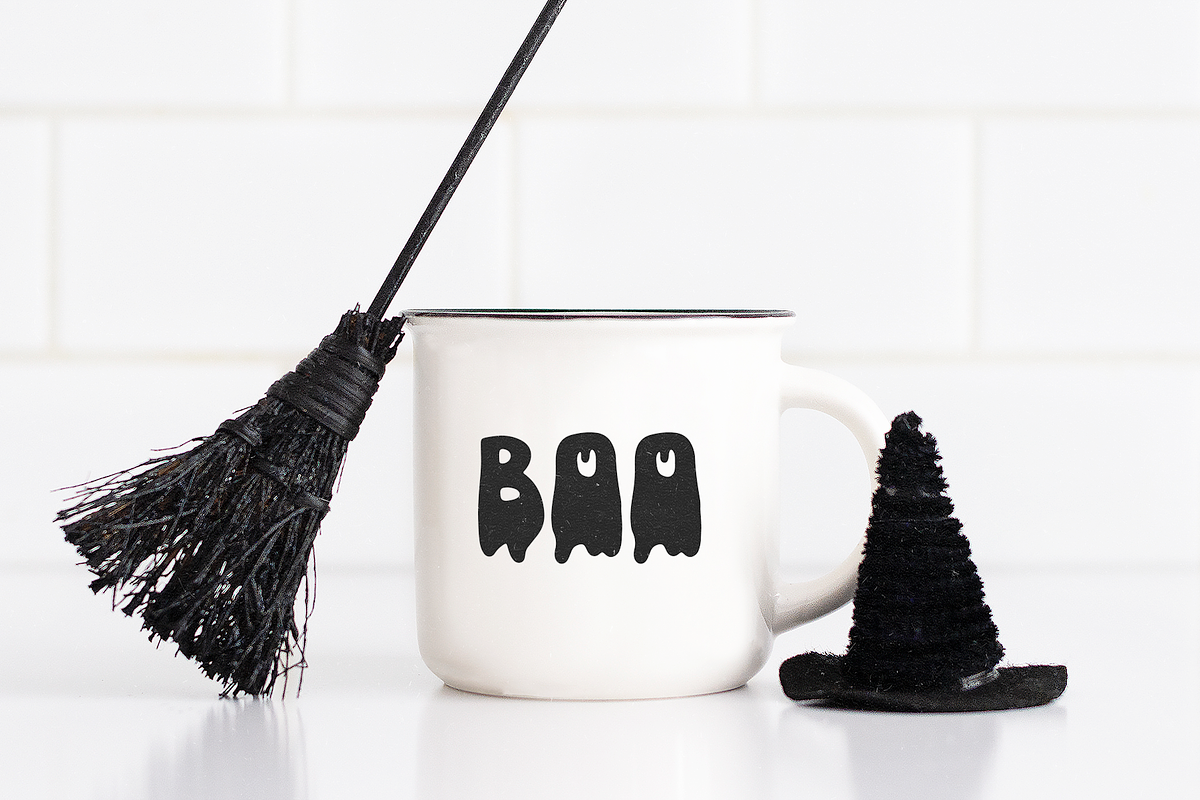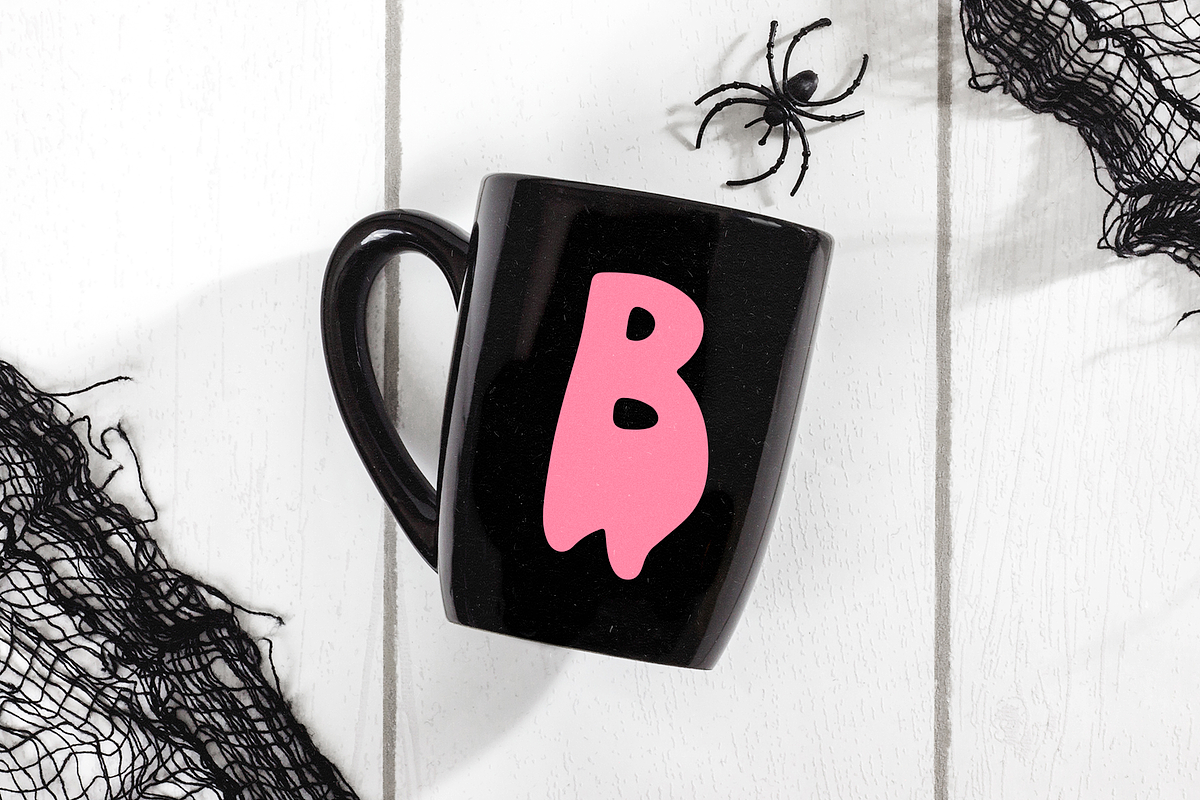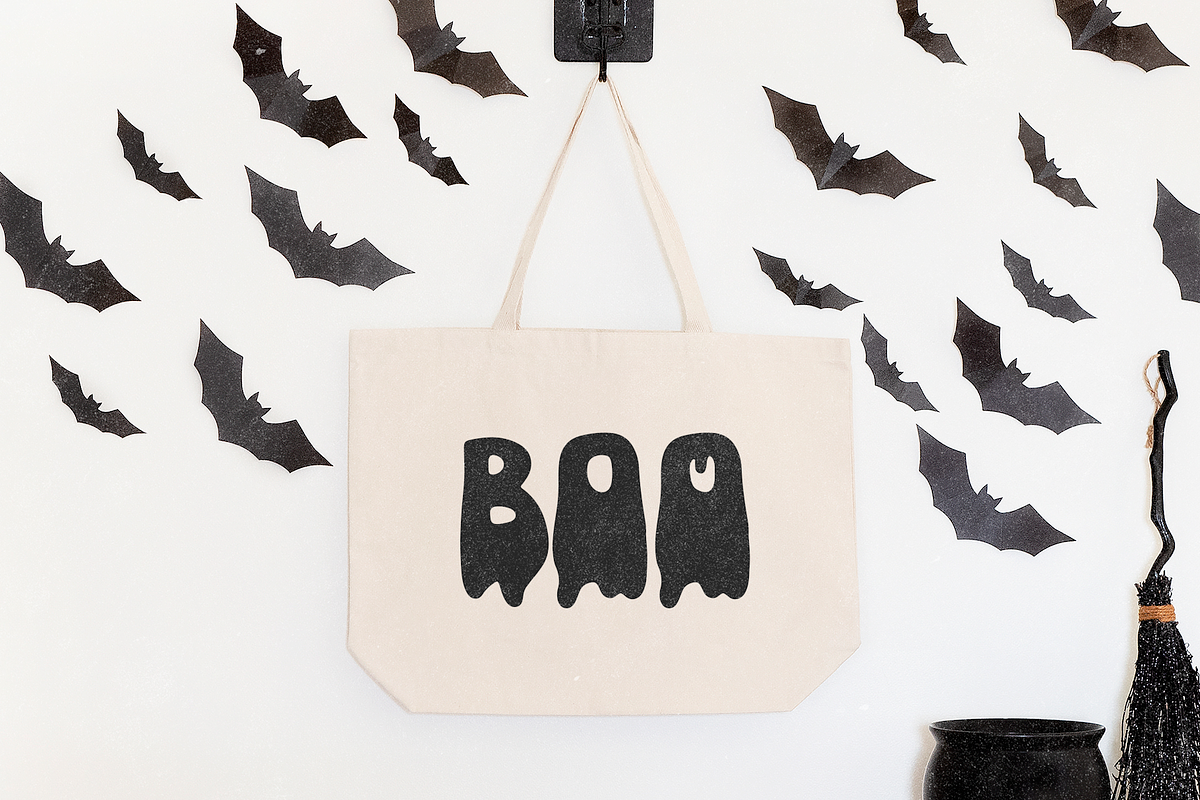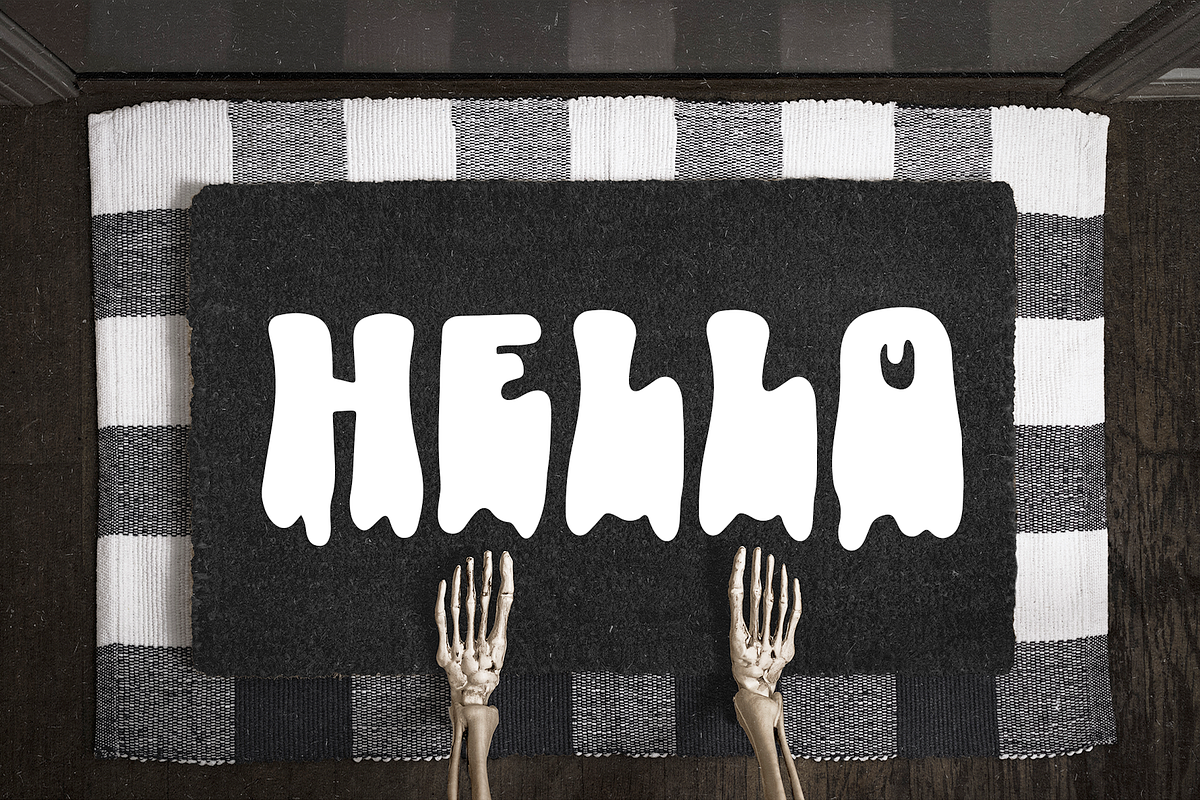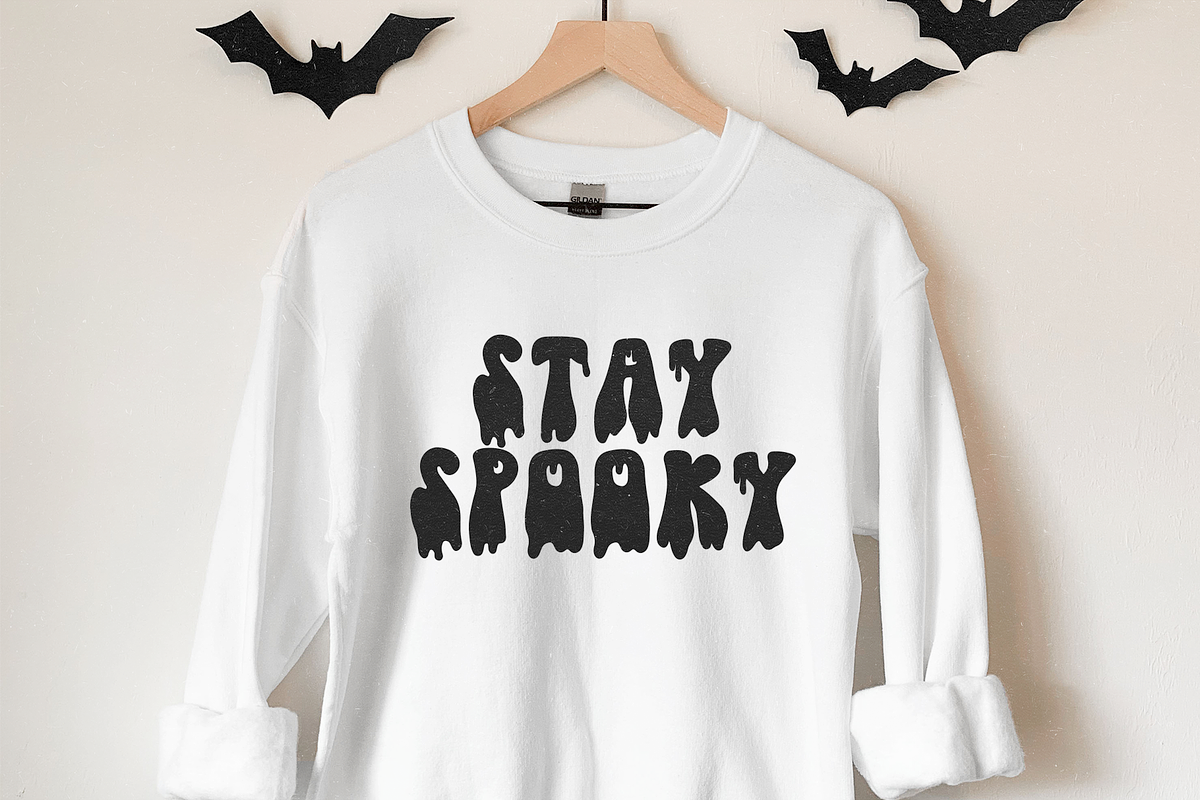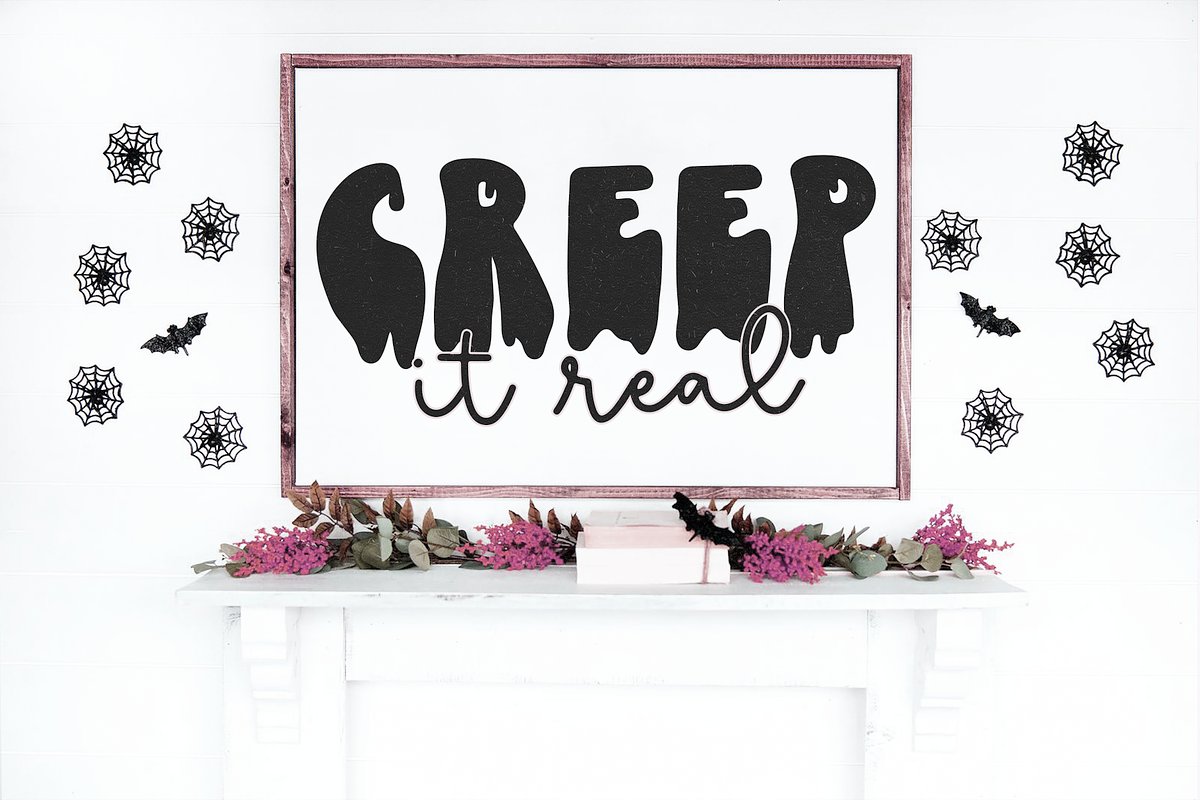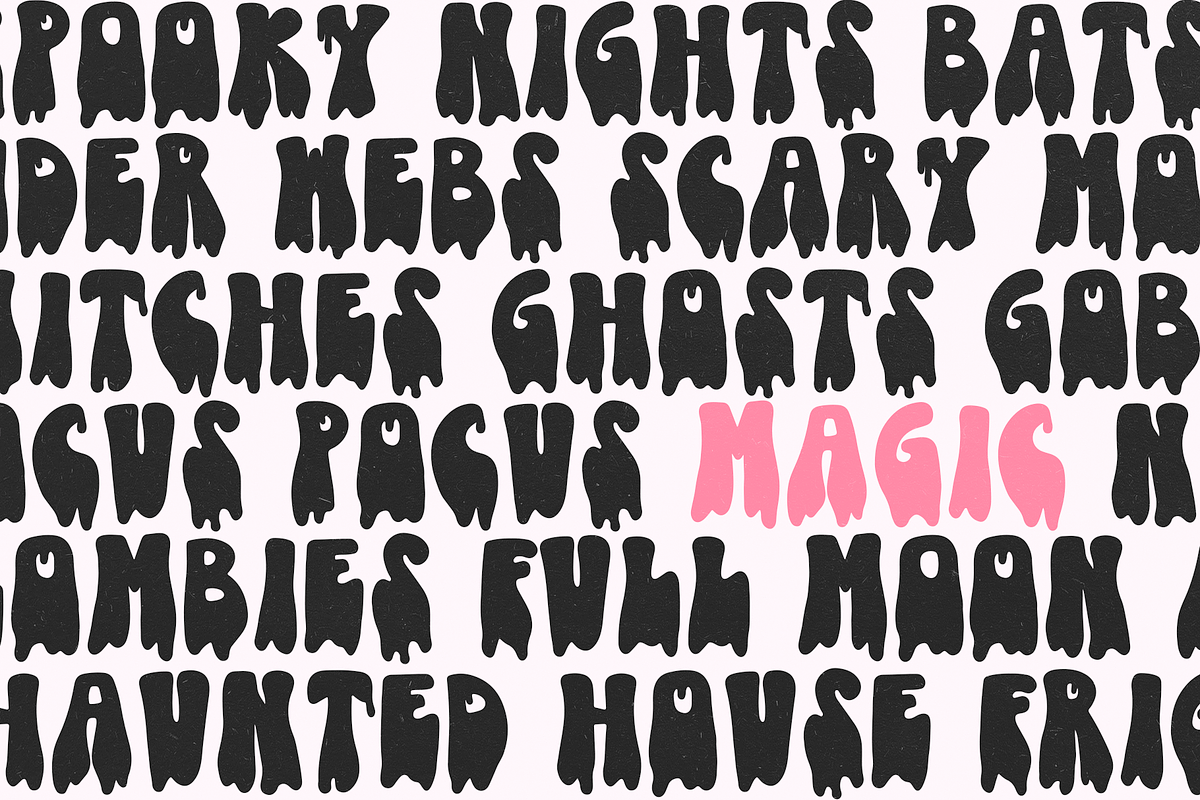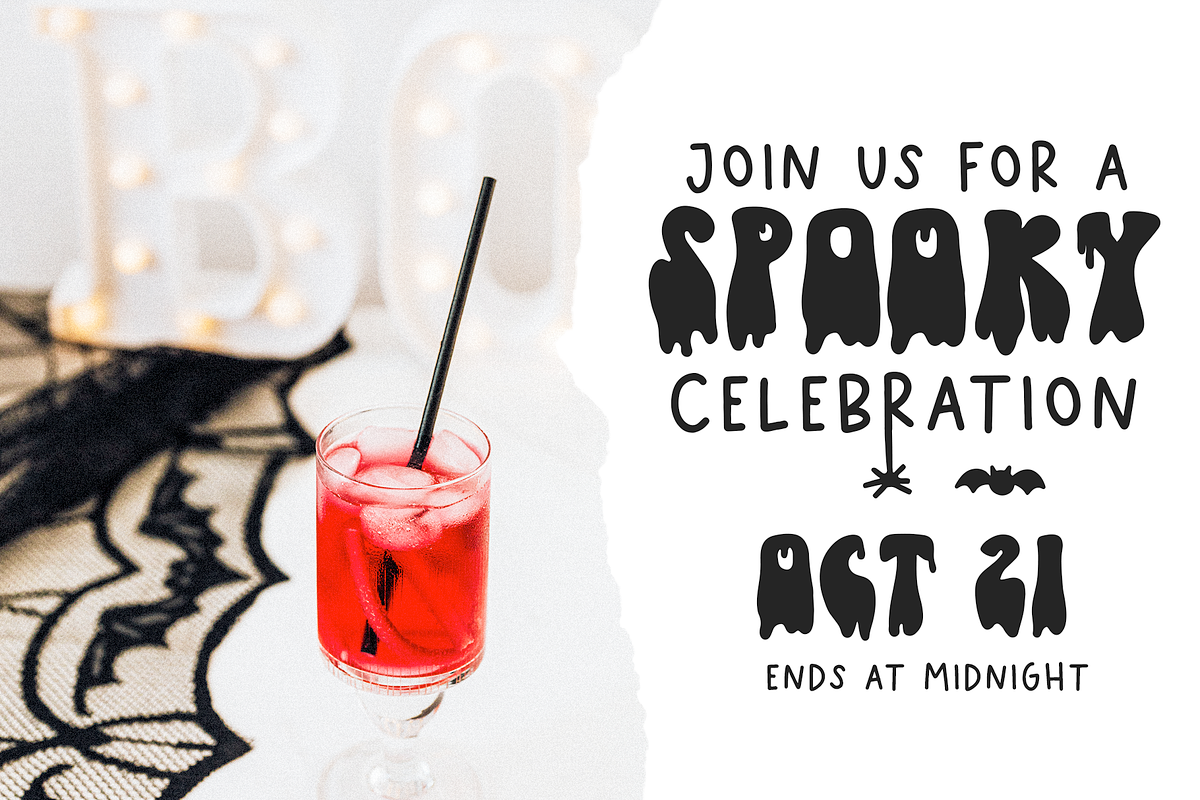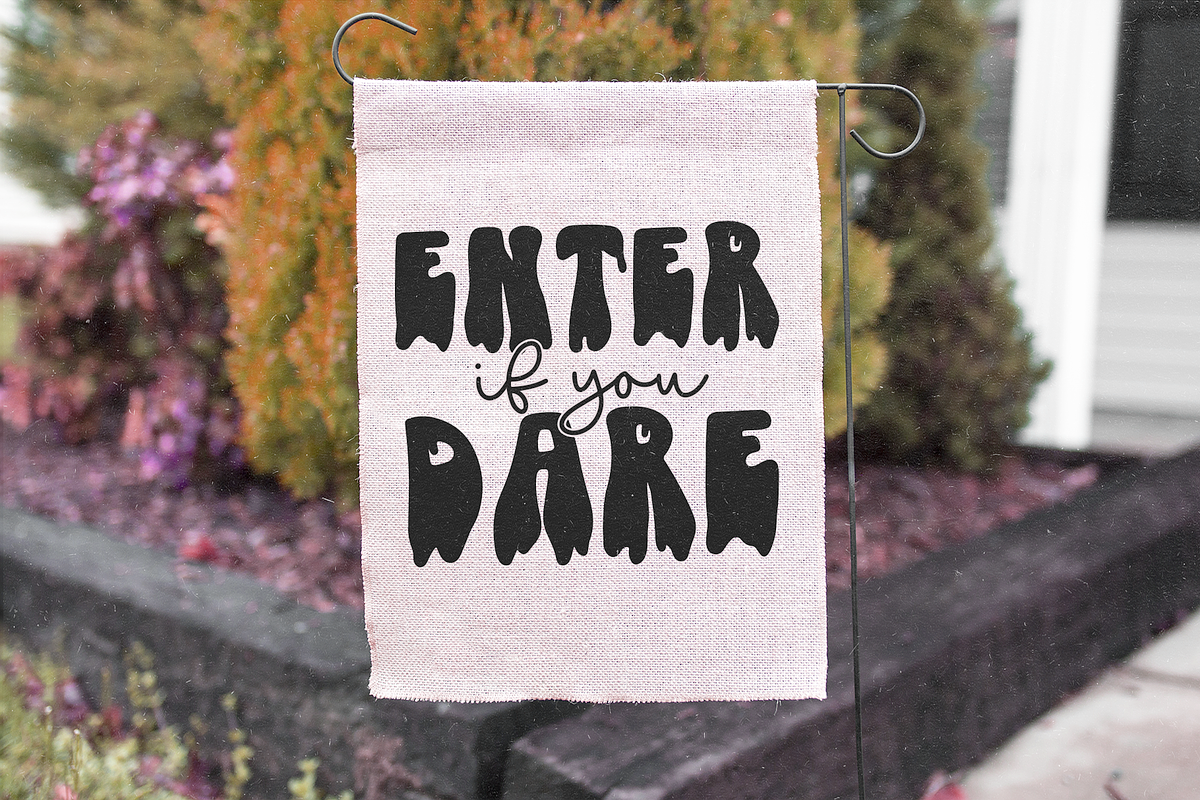
Ghostly | Dripping Halloween Font
Ghostly is a fun halloween-themed font with dripping letters and a boho vibe!
- Use * for spider
- Use - for ghost
- Use + for hat
- Use = for bat
Includes capital letters only. Numbers and symbols included. No accents.